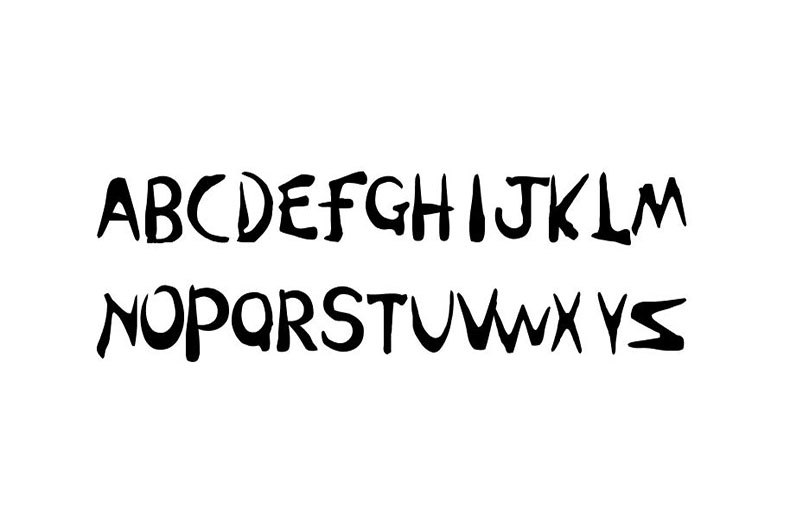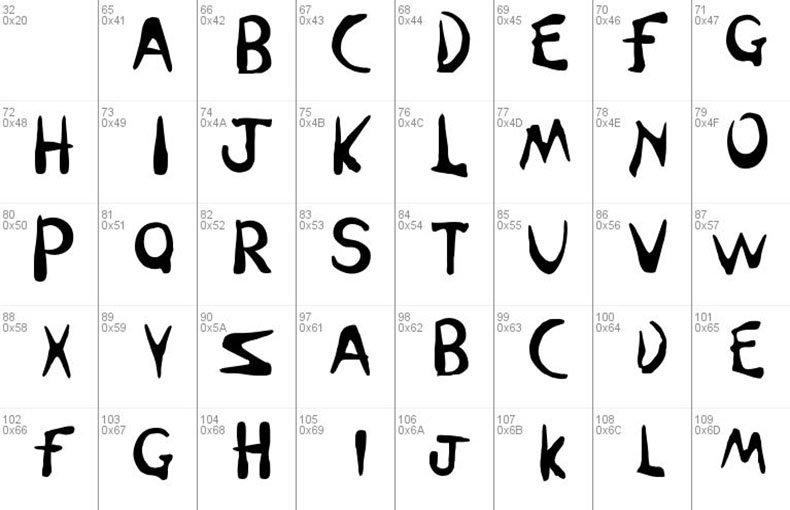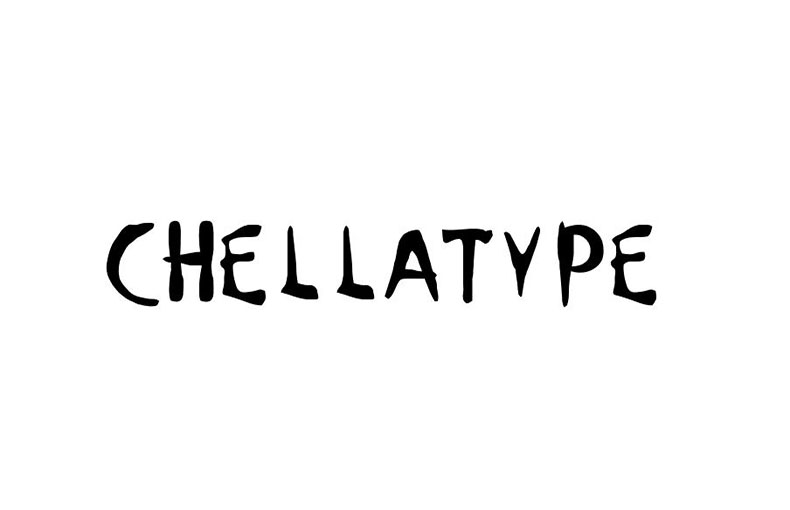
ChellaType Font is a fancy display typeface that has a bold and playful unique character. J R L J R is known as the designer of this font.
Due to its unique and stylish look, you can try it out for various purposes such as branding, marketing, editorial designs, invitations, and social media graphics.
The designer has created this font with its thick strokes and rounded corners. That will give your design a friendly and approachable feel.
ChellaType typeface can be found in a single style along with True Type features. This single style contains 56 unique glyphs and supports 34 multilingual languages.
This unique typeface is suitable for gaming posters, titles, photoshop, illustrator, kids’ bags, stickers, birthday cards, greeting cards, social media posters, headers, banners, birthday cards, product design, kids’ elements, titles, headlines, and stationery. is the best choice for Printing, signs, headers, horror titles, and headlines, as well as printing on t-shirts.
This font supports 34 languages.
ChellaType Font is a fancy display typeface that has a bold and playful unique character. J R L J R is known as the designer of this font.